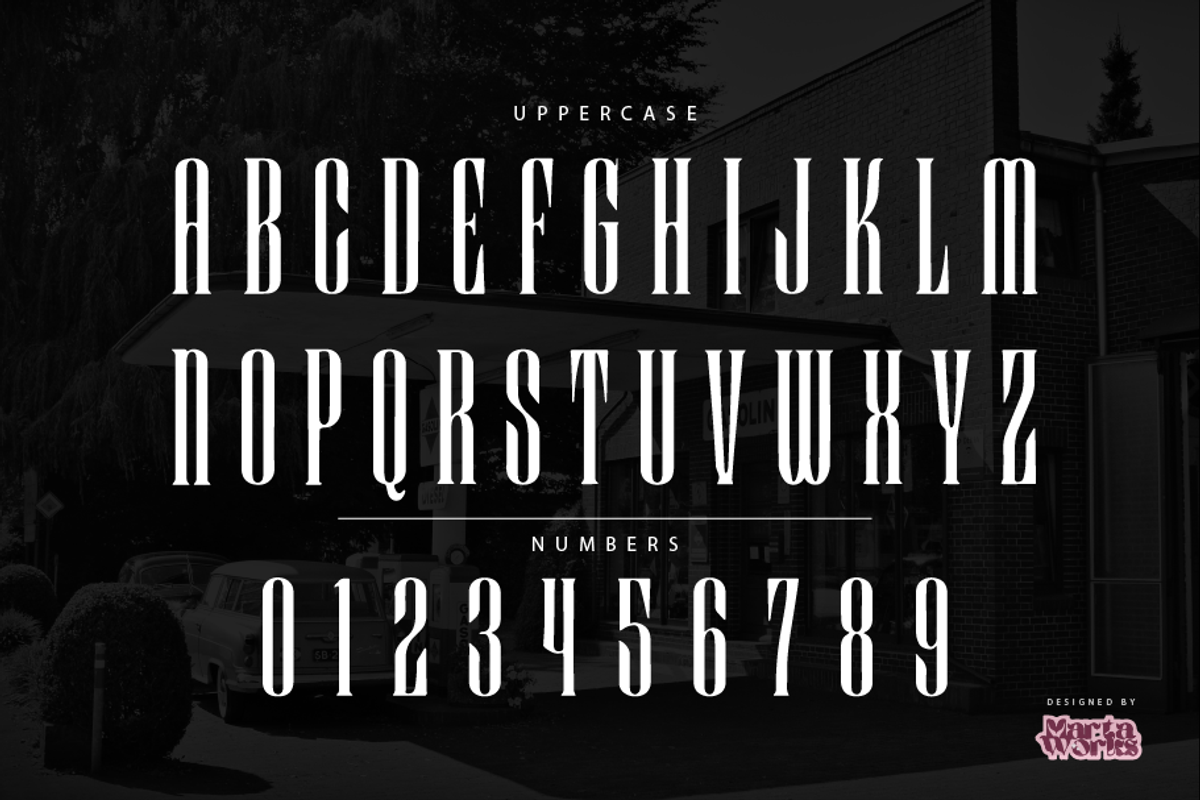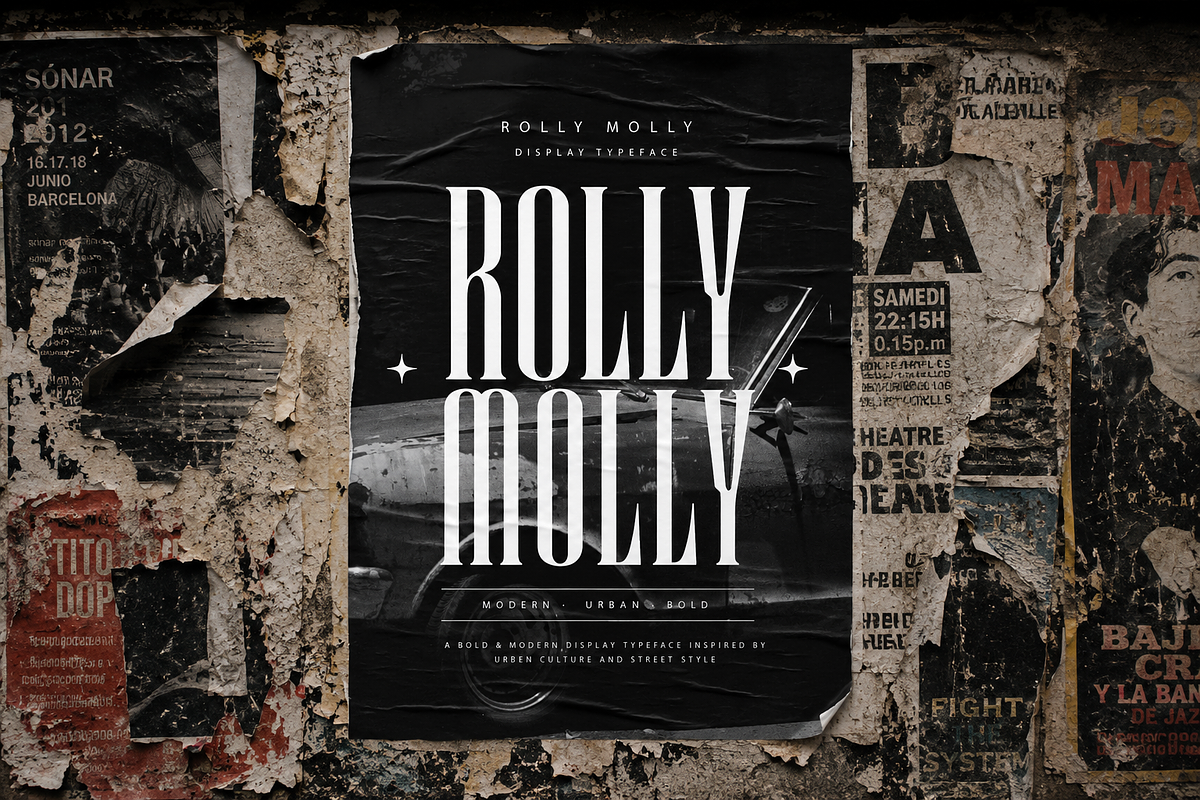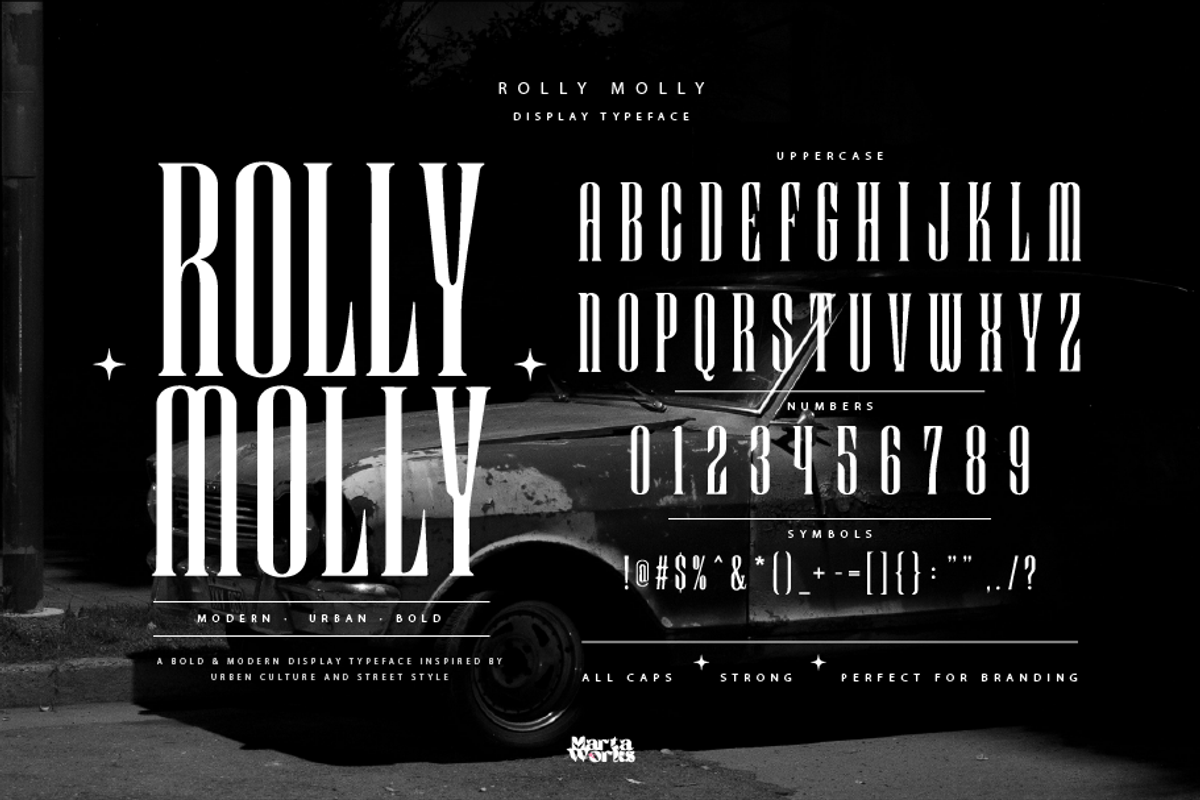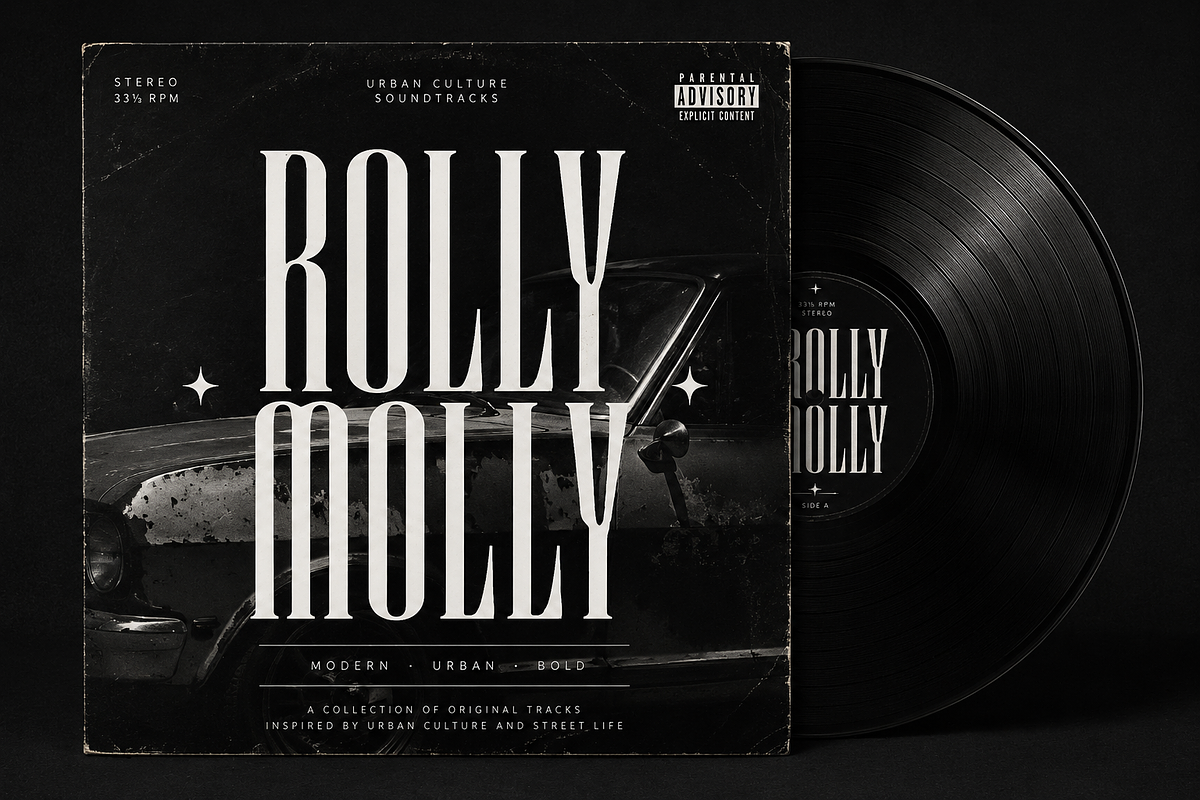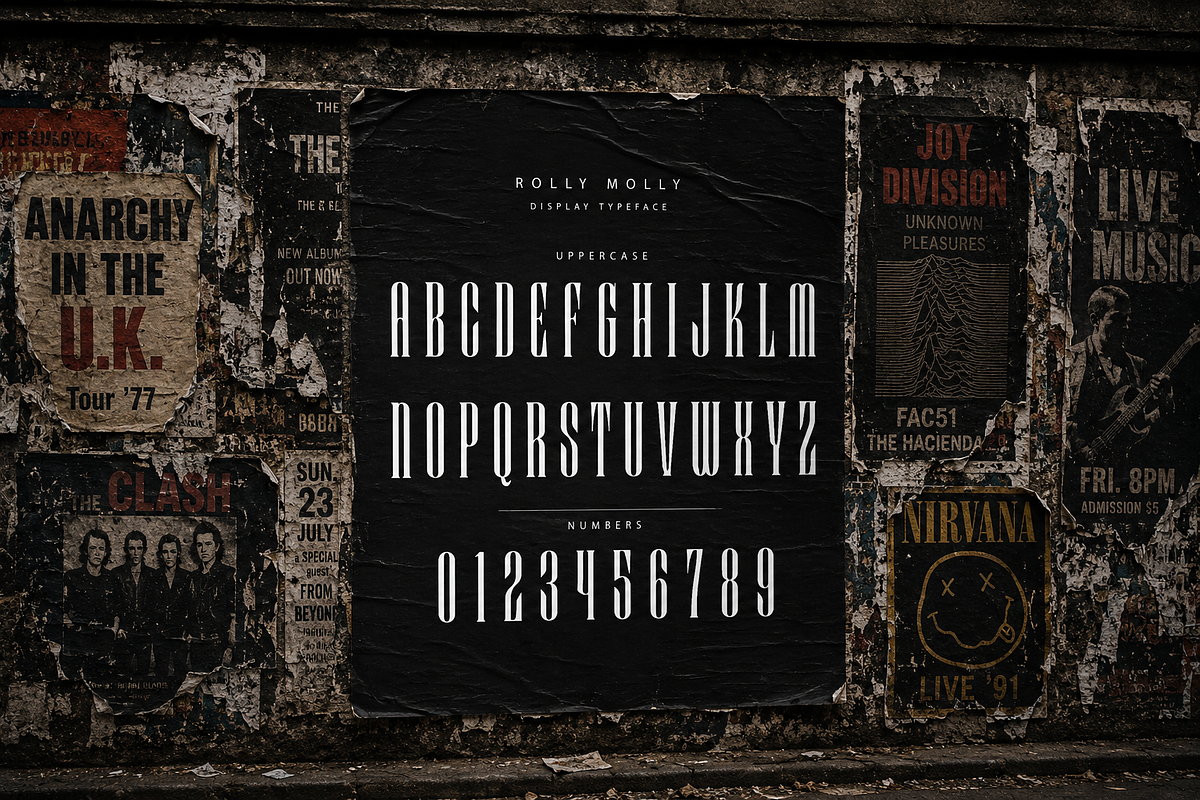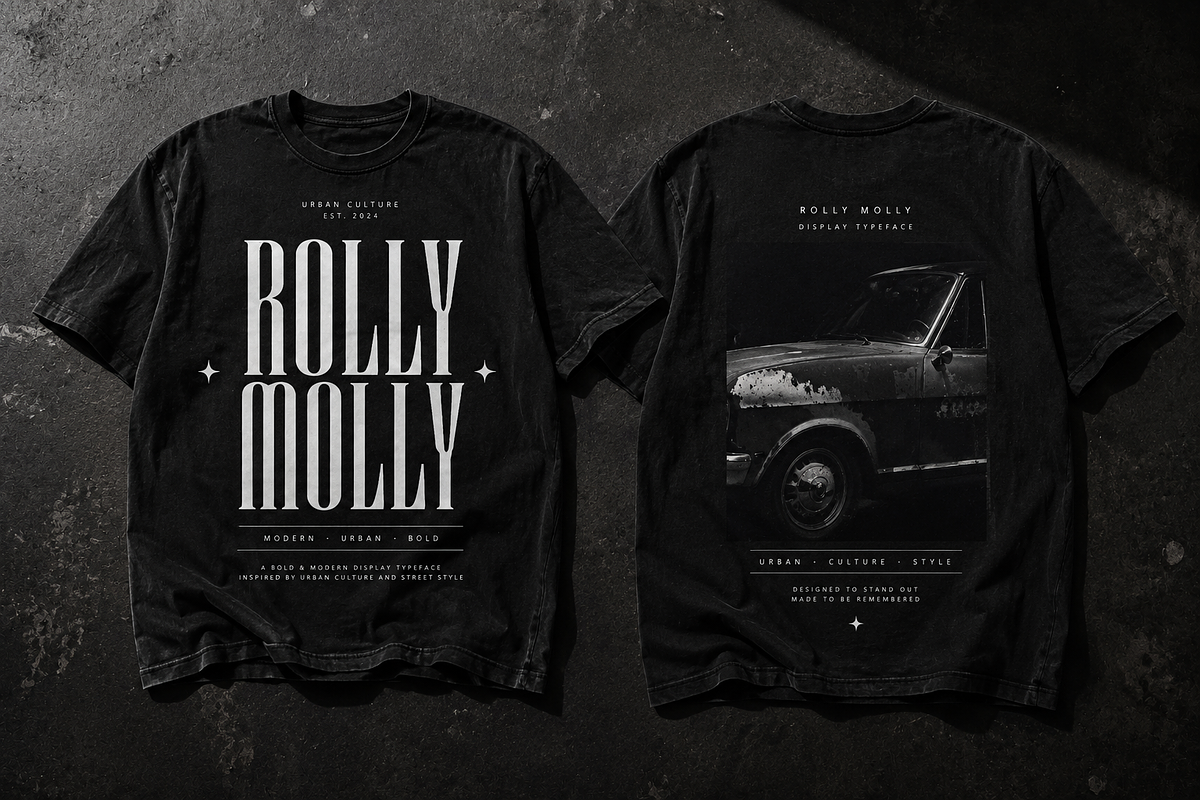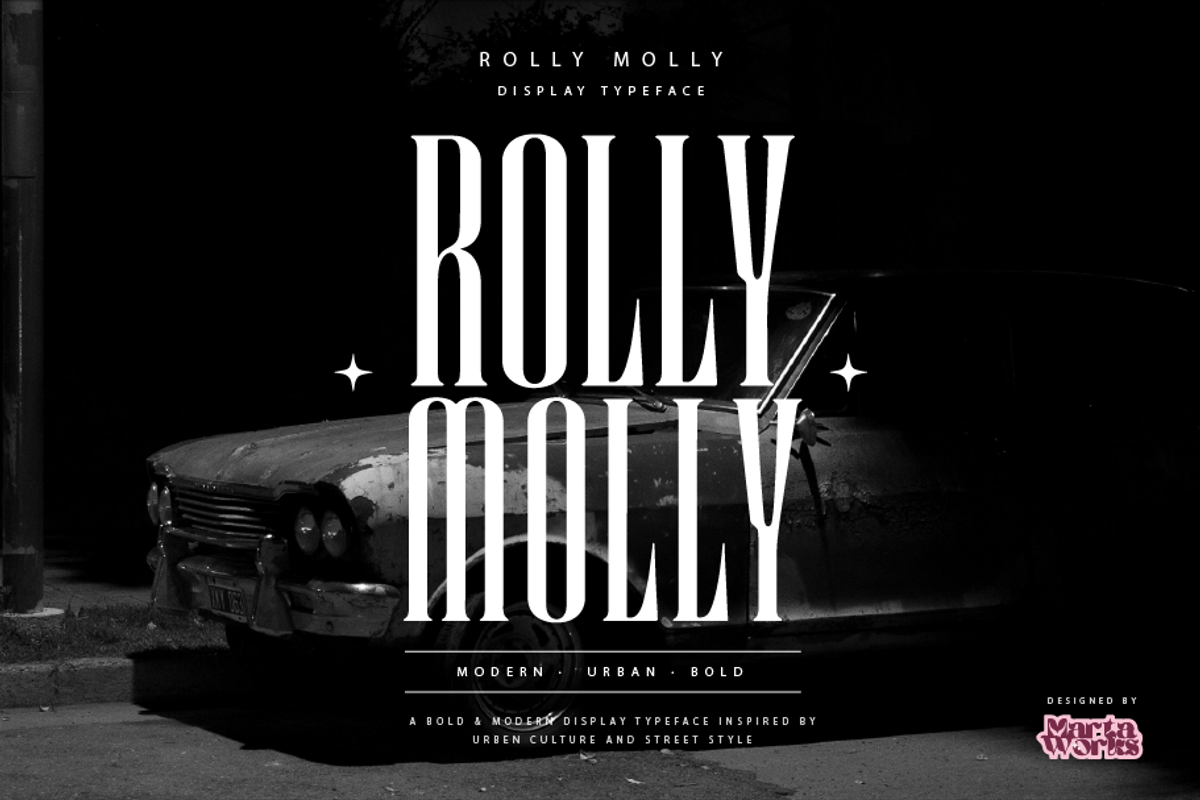
Rolly Molly Display Serif Font
Rolly Molly is a bold condensed display serif inspired by editorial typography, luxury branding, and urban culture. Its tall proportions and elegant high-contrast shapes make it perfect for headlines that demand attention.
Ideal for posters, branding, logos, album covers, magazine layouts, packaging, fashion campaigns, and social media.
Display Serif
Condensed Style
Uppercase Characters